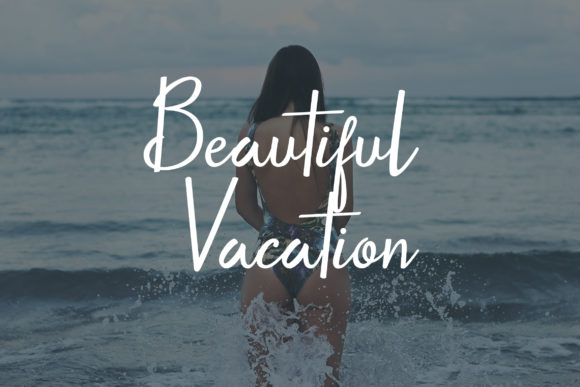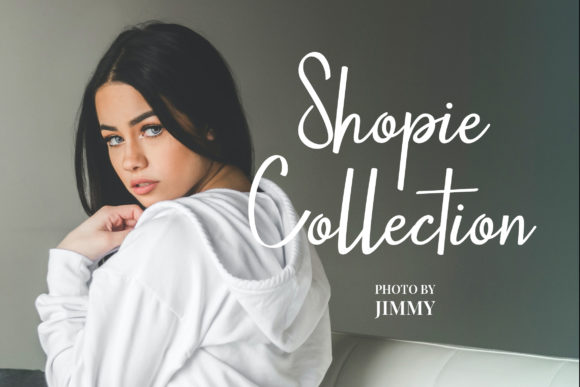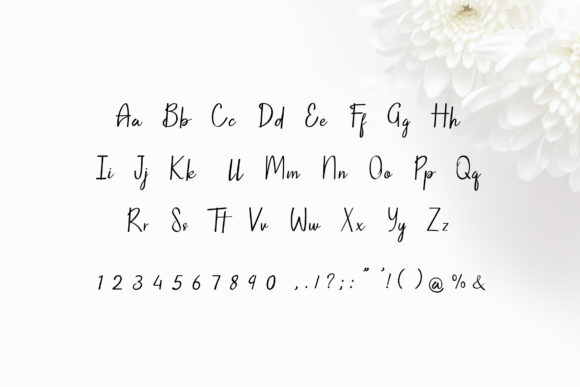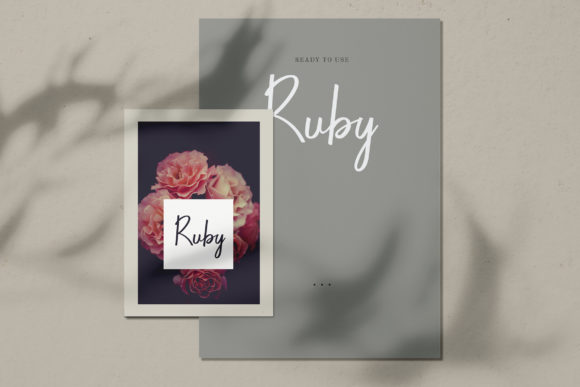
Discover the Elegance of Amsterdam Bridge Font: A Timeless Cursive Script
In the realm of typography, few fonts capture the essence of elegance and sophistication as effectively as the Amsterdam Bridge Font. This cursive and classic script font has been making waves in the design community, and for good reason. Defined by its smooth curves and fluid lines, Amsterdam Bridge is the perfect addition to any design project that calls for a touch of refinement and style.
The Characteristics of Amsterdam Bridge Font
Amsterdam Bridge Font is a cursive script font that exudes a sense of luxury and glamour. Its smooth curves and classic lines make it an ideal choice for fashion branding, editorial designs, and any project that requires a high level of sophistication. The font’s elegant appearance is reminiscent of traditional calligraphy, yet its modern twist makes it versatile and adaptable to a wide range of design applications.
Why Designers Love Amsterdam Bridge Font
Designers and crafters alike are drawn to Amsterdam Bridge Font for its unique combination of classic charm and modern appeal. Here are just a few reasons why this font has become a favorite among design enthusiasts:
• Elegant Appearance: Amsterdam Bridge Font boasts a sophisticated and refined appearance that elevates any design project.
• Versatility: The font’s smooth curves and classic lines make it suitable for a wide range of design applications, from fashion branding to editorial designs.
• Easy to Read: Despite its cursive nature, Amsterdam Bridge Font is remarkably legible, making it perfect for body text and headlines.
• Unique Character: The font’s distinctive character and charm set it apart from more traditional script fonts.
Perfect for Fashion Branding and Editorial Designs
Amsterdam Bridge Font is particularly well-suited for fashion branding and editorial designs, where style and sophistication are paramount. The font’s elegant appearance and refined lines make it an excellent choice for:
• Fashion Logos: Create a lasting impression with a custom logo that showcases your brand’s personality and style.
• Editorial Headlines: Add a touch of glamour to your editorial designs with Amsterdam Bridge Font’s sophisticated and refined lines.
• Packaging Design: Elevate your packaging design with a font that exudes luxury and sophistication.
Tips for Using Amsterdam Bridge Font
To get the most out of Amsterdam Bridge Font, here are a few tips to keep in mind:
• Use it sparingly: Amsterdam Bridge Font is best used sparingly, as a headline or title font, to maximize its impact.
• Pair it with a sans-serif font: Combine Amsterdam Bridge Font with a sans-serif font for a striking contrast that adds visual interest.
• Experiment with colors: Amsterdam Bridge Font looks stunning in a range of colors, from metallic gold to deep berry tones.
In conclusion, Amsterdam Bridge Font is a timeless cursive script font that is sure to elevate any design project. Its smooth curves, classic lines, and elegant appearance make it perfect for fashion branding, editorial designs, and any project that requires a touch of sophistication. With its versatility, legibility, and unique character, Amsterdam Bridge Font is an excellent addition to any designer’s toolkit.